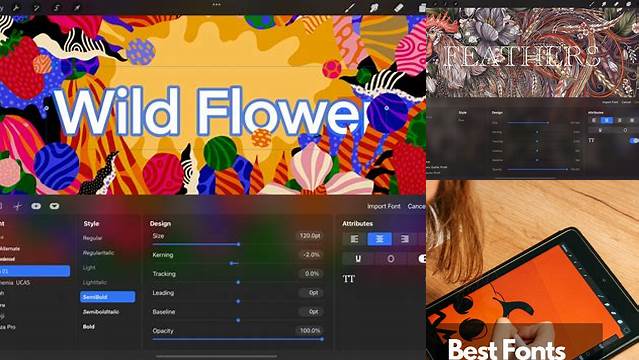
Cool Fonts For Procreate: A Step-by-Step Guide
Hey guys! Ever felt like your Procreate artwork is missing that extra oomph? A lot of times, the right font can be the key to taking your creations from good to amazing. But where do you even start? Don't worry, I've got you covered! This guide is all about how to get cool fonts on Procreate, making your text as eye-catching as your artwork. We're going to dive deep into finding, installing, and even creating the perfect fonts to make your Procreate projects truly stand out.
Why Cool Fonts Matter in Procreate
Let's be real, the default fonts in any app can get a little…boring. Cool fonts, though? They add personality! Think about it: the font you choose can convey a mood, a style, and a whole vibe. A playful, whimsical font can make a children's illustration pop, while a bold, modern font can give your posters a professional edge. The importance of cool fonts in Procreate can’t be overstated, they are the unsung heroes of digital art. Using the right typeface isn’t just about readability; it’s about visual communication. Your font choice directly influences how your message is perceived, enhancing the emotional impact and overall aesthetic of your artwork. Imagine designing a vintage-inspired poster with a generic, sans-serif font – it just wouldn’t hit the mark, would it? A carefully selected font, on the other hand, can transport your audience to another era, adding authenticity and depth to your design. Whether you're creating striking typography for a logo, adding compelling text to an illustration, or designing a captivating poster, unique fonts will amplify your artistic vision. Furthermore, creative fonts set your work apart. In a sea of digital content, originality is key, and distinctive typography can be a powerful way to make your art memorable. Think of the iconic fonts used in movie posters or book covers – they’re instantly recognizable and contribute significantly to the overall brand identity. By experimenting with various fonts, you can develop your own signature style, making your Procreate projects instantly identifiable. So, whether you’re aiming for elegance, playfulness, or boldness, cool fonts are an essential tool in your artistic arsenal. They’re not just about the words you write; they’re about the story you tell.
Finding the Perfect Fonts for Procreate
Okay, so you're convinced you need some amazing fonts. Now what? The good news is, the internet is a treasure trove of typography! The key is knowing where to look. When finding the perfect Procreate fonts, the options are vast and varied, catering to every artistic style and project need. There are tons of websites out there offering both free and premium fonts. Websites like DaFont, Google Fonts, and Creative Market are great places to start. DaFont is a classic for free fonts, offering a huge selection of styles, though always double-check the licensing for commercial use. Google Fonts is fantastic for its vast library of open-source fonts that are free for both personal and commercial projects. And then you have marketplaces like Creative Market, which offer high-quality premium fonts, often bundled in thematic packs, providing excellent value for money. Exploring these resources will not only expand your font library but also inspire new design directions. Remember, the perfect font should complement your artwork, enhancing its message and aesthetic appeal. Consider the tone and style of your piece – a playful, whimsical illustration might call for a hand-drawn or script font, while a modern, minimalist design might benefit from a clean, sans-serif typeface. Also, think about readability; while a decorative font can add flair, it’s crucial that your text remains legible, especially in smaller sizes or longer passages. When browsing through different fonts, pay attention to details like kerning (the spacing between individual letters) and glyphs (additional characters and symbols). A well-designed font will have consistent kerning and a comprehensive set of glyphs, ensuring your typography looks polished and professional. Don’t hesitate to experiment with different combinations of fonts, too. Pairing a bold headline font with a simpler body text font can create a visual hierarchy and make your design more engaging. The journey of finding the perfect Procreate font is an exciting one, filled with opportunities to discover new typographic styles and elevate your artistic creations.
Importing Fonts Directly
If you prefer a more hands-on approach, you can also import fonts directly using the Files app on your iPad. It's a bit more technical, but still manageable. Importing fonts directly onto your iPad offers a streamlined approach for users who prefer a hands-on method. This process leverages the Files app, a built-in iOS tool, to manage and organize font files before installing them using a font management app. Understanding how to directly import Procreate fonts can provide greater control over your font library and ensure a smooth installation process. The first step in importing fonts directly is to download the font files to your iPad. These files typically come in .otf or .ttf formats and can be obtained from various sources, including font marketplaces, design websites, or cloud storage services. Once the font files are downloaded, they are usually saved in the Downloads folder within the Files app. To access the Files app, simply tap its icon on your iPad’s home screen. If you don’t see the icon, you can search for it using the Spotlight Search feature. Within the Files app, navigate to the Downloads folder to locate the font files you’ve downloaded. You can also create new folders within the Files app to organize your fonts into categories, making it easier to find specific typefaces later. Once you’ve located your font files, the next step is to import them into a font management app like iFont or AnyFont. To do this, open your chosen font management app and look for an option to import fonts. The app will typically provide several import methods, including importing from the Files app. Select the Files app as your import source, and then navigate to the folder where your font files are stored. Select the font files you want to import, and the font management app will add them to its library. From there, you can proceed with the installation process as described in the previous section, which involves creating a configuration profile and installing the fonts onto your iPad’s system. While directly importing fonts using the Files app requires a few more steps than some other methods, it offers the advantage of centralized font file management. By keeping your font files organized within the Files app, you can easily back them up, share them across devices, and maintain a consistent font library. This method is particularly useful for designers and artists who work with a large number of fonts and value a structured approach to file management. By combining the Files app with a font management app, you can efficiently import and install fonts on your iPad, enhancing your Procreate projects with a diverse range of typographic options.
Using Your New Fonts in Procreate
Okay, the moment of truth! You've got your cool new fonts installed. Now, how do you actually use them in Procreate? Using your newly installed fonts in Procreate is the final step in enhancing your artwork with personalized typography. Once the fonts are installed on your iPad, they become readily available within Procreate, allowing you to add custom text and elevate your designs with unique typefaces. Understanding how to add custom fonts to Procreate is essential for creating visually compelling and professional-looking artwork. To begin, open your Procreate app and either create a new canvas or open an existing project. To add text, tap the wrench icon in the top left corner of the screen to access the Actions menu. In the Actions menu, select the “Add” tab, and then tap “Add Text.” This will create a new text layer on your canvas, with a default placeholder text. To edit the text, tap the text layer in the Layers panel. This will bring up the text editing toolbar, which provides options for modifying the text, font, size, color, and other typographic properties. To change the font, tap the font name in the text editing toolbar. This will open a font selection panel, which displays a list of all the fonts installed on your iPad, including the ones you’ve recently added. The font list is typically organized alphabetically, making it easy to find the font you’re looking for. You can scroll through the list or use the search bar to quickly locate a specific font. Once you’ve found the font you want to use, tap its name to apply it to your selected text. Procreate will instantly update the text on your canvas, allowing you to see how the new font looks in your design. In addition to changing the font, the text editing toolbar provides options for adjusting other typographic properties, such as font size, kerning (the spacing between individual letters), tracking (the overall spacing between characters), leading (the spacing between lines of text), and baseline (the vertical position of the text). Experimenting with these settings can help you fine-tune the appearance of your text and achieve the desired visual effect. Procreate also offers various text styling options, such as bold, italic, underline, and all caps. These styles can be applied to selected text or to the entire text layer, providing flexibility in your typographic design. By leveraging these features, you can create dynamic and expressive typography that complements your artwork and enhances its overall impact. When using custom fonts in Procreate, it’s important to consider the font’s readability and suitability for your project. Choose fonts that are legible and appropriate for the context of your design. Also, be mindful of font licensing, ensuring that you have the necessary permissions to use the fonts in your commercial projects. With these tips in mind, you can confidently incorporate your new fonts into your Procreate creations, adding a personal touch and professional polish to your artwork.
Creating Your Own Fonts (Advanced)
For the truly adventurous, you can even create your own fonts! This is a more advanced topic, but it opens up a whole new world of creative possibilities. Creating your own fonts is an advanced but incredibly rewarding endeavor for digital artists and designers. Designing a custom typeface allows you to express your unique creative vision and add a personal touch to your Procreate projects. While the process requires dedication and attention to detail, the ability to craft a bespoke font that perfectly aligns with your artistic style is a powerful asset. To embark on the journey of Procreate font creation, you’ll need the right tools and a solid understanding of typography principles. Several apps and software programs are available for font design, each with its own set of features and capabilities. Some popular options include Procreate itself (for sketching and initial design), Glyphs (a professional font editor for macOS), and Calligraphr (a web-based tool that allows you to create fonts from your handwriting). Before diving into the technical aspects of font design, it’s helpful to familiarize yourself with the anatomy of a typeface. Understanding terms like serifs, ascenders, descenders, x-height, and baseline will provide a foundation for creating well-structured and visually balanced letters. You’ll also want to consider the overall style and character of your font. Will it be a bold and modern sans-serif, an elegant and traditional serif, a whimsical script, or something else entirely? Defining the purpose and personality of your font will guide your design decisions and ensure a cohesive final product. The font creation process typically begins with sketching out the basic letterforms. Procreate can be an excellent tool for this stage, allowing you to experiment with different shapes and styles using its intuitive drawing tools. Once you’re satisfied with your sketches, you can import them into a font editor like Glyphs or use a tool like Calligraphr to digitize your designs. In the font editor, you’ll refine the letterforms, adjust spacing and kerning, and add any additional characters or symbols you want to include in your font. This stage requires meticulous attention to detail, as even small adjustments can have a significant impact on the overall appearance and readability of your font. Creating a complete font family, which includes different weights (such as bold, italic, and light) and styles, is a more involved process but can greatly enhance the versatility of your typeface. Once your font is designed, you can export it in .otf or .ttf format and install it on your iPad for use in Procreate and other apps. Creating your own fonts is a challenging but ultimately fulfilling creative endeavor. It allows you to push the boundaries of typography and craft a unique visual identity for your artwork.
So there you have it! Getting cool fonts on Procreate is totally achievable. With a little exploring, downloading, and maybe even some font-creating magic, you'll be well on your way to making your artwork truly shine. Remember, the right font can make all the difference, so go out there and find your perfect match! The power of unique fonts in Procreate cannot be overstated; they are a crucial element in creating captivating and visually appealing artwork. By investing the time and effort to find, install, and manage your font library, you can elevate your designs and express your creative vision more effectively. Throughout this guide, we’ve explored the importance of cool fonts in Procreate, highlighting how they add personality, convey mood, and enhance the overall aesthetic of your artwork. We’ve delved into the vast landscape of font resources, discussing both free and premium options, and providing tips for finding the perfect typefaces to match your artistic style and project requirements. We’ve also walked through the process of installing fonts on your iPad, utilizing font management apps and direct import methods to ensure a seamless integration with Procreate. Additionally, we’ve covered how to use your new fonts within Procreate, adjusting typographic properties and exploring styling options to create dynamic and expressive text designs. For the adventurous creatives, we’ve touched on the advanced topic of creating your own fonts, emphasizing the potential for crafting bespoke typefaces that perfectly align with your unique artistic vision. Finally, we’ve addressed common troubleshooting issues, providing practical solutions for resolving font-related problems and maintaining a smooth workflow in Procreate. As you continue your artistic journey, remember that typography is an integral part of visual communication. The fonts you choose play a significant role in conveying your message and connecting with your audience. By mastering the art of typography and building a diverse font library, you can unlock new creative possibilities and transform your Procreate artwork into stunning visual masterpieces. So, embrace the world of fonts, experiment with different styles, and let your typographic creativity flourish!